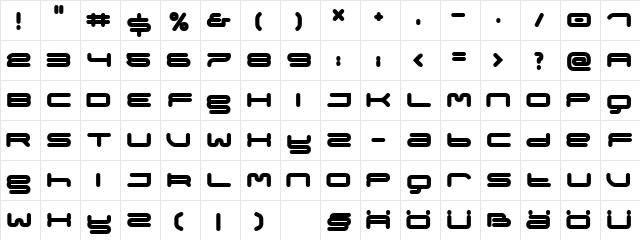
megabold Regular Font Preview
megabold Regular
megabold Regular Font Details
Design Context for megabold Typeface
megabold takes a measured approach to typography — its balanced proportions and neutral character make it a reliable workhorse for both digital and print work. The heavy weight commands attention and anchors typographic hierarchies.